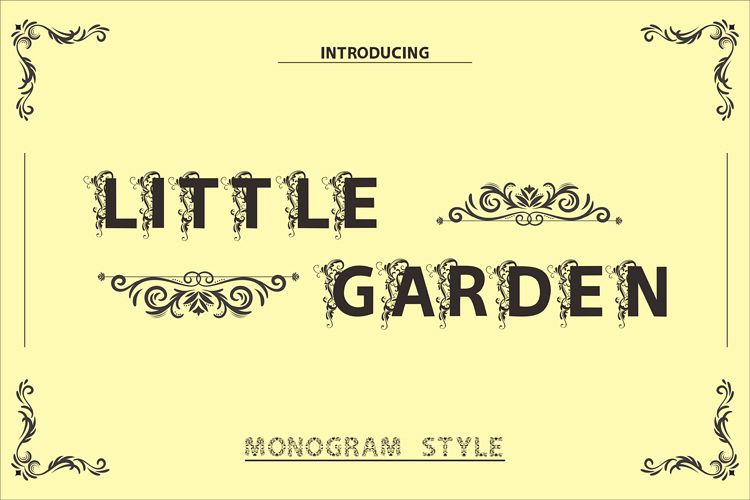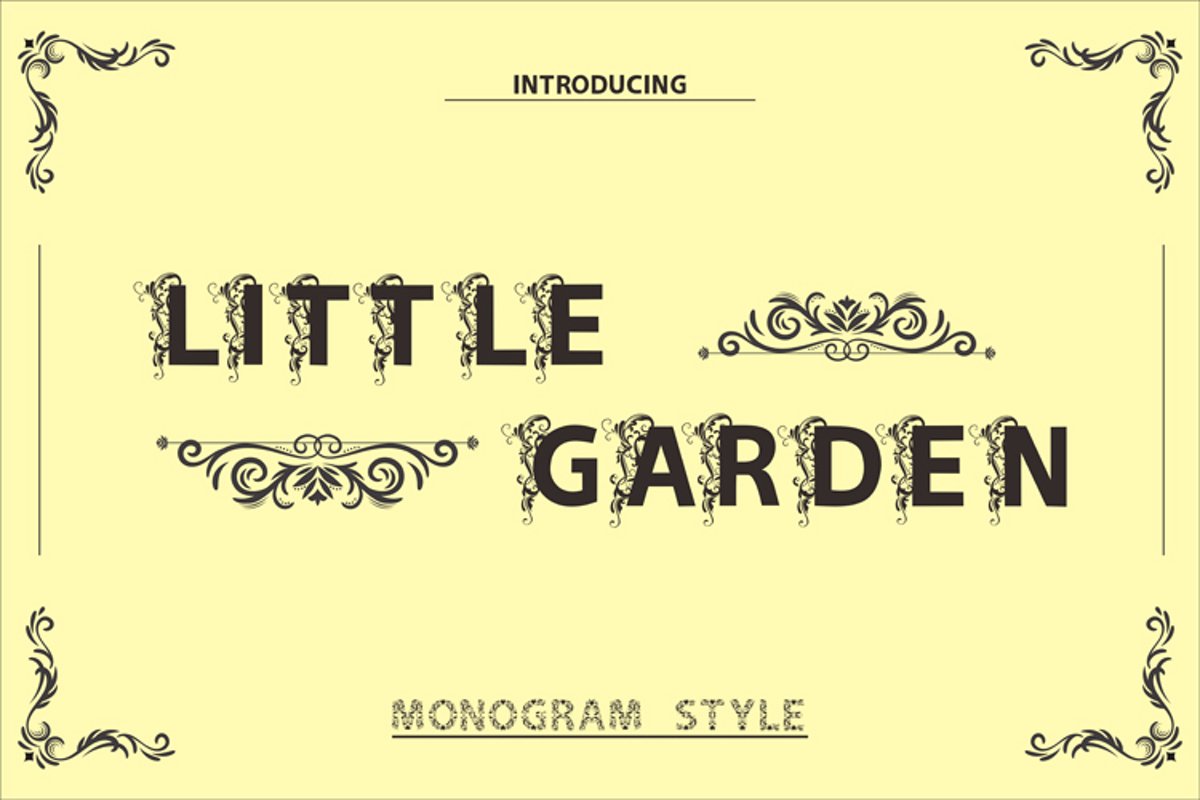
Little Garden
Little Garden features lots of glyphs and A-Z alternate characters, ligatures and multiple language
with MONOGRAM STYLE is suitable for desing, your display and also suitable for logos, clothing, and more